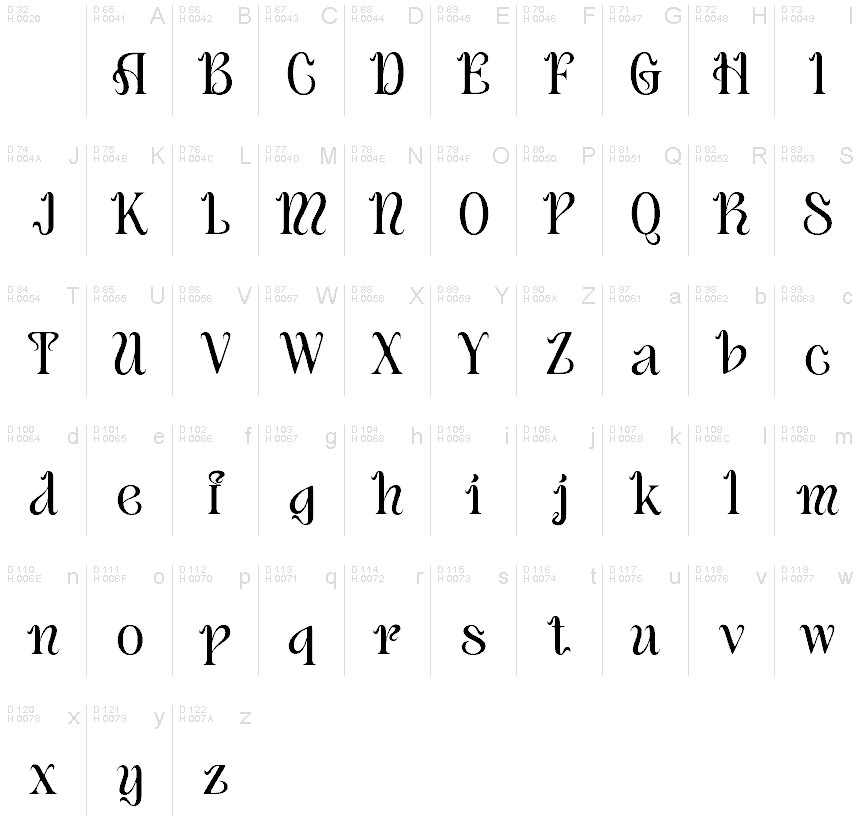
CSBaileyDrawn-Regular Demo
CS Bailey Drawn font by Craft Supply Co. is a condensed vintage serif font with artistic details, uneven textures, and varying boldness. It combines expressive flairs with historical influences, all while maintaining an overall sophisticated and elegant appearance. Tall stems, thin lines with swaying curves give this font its characteristic decorative look.